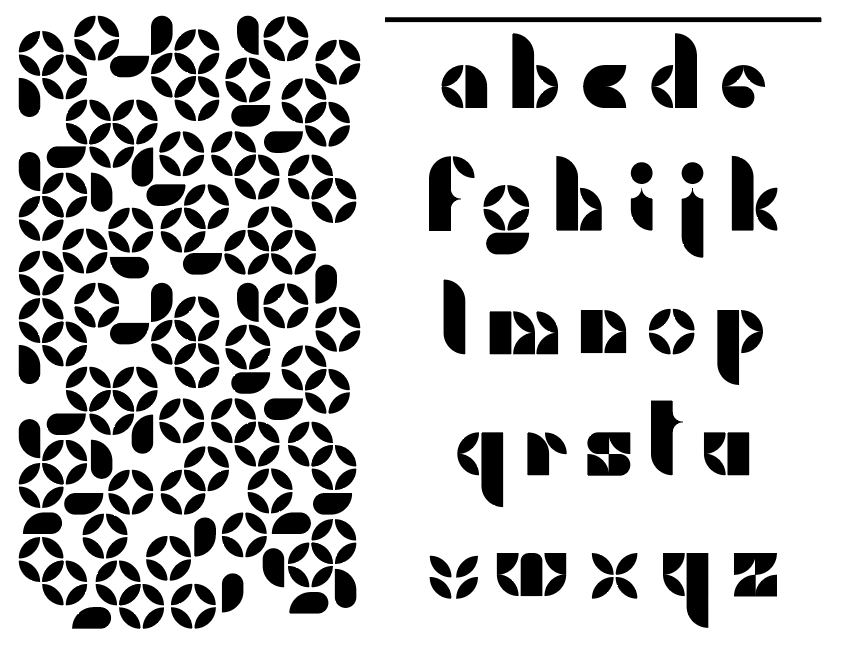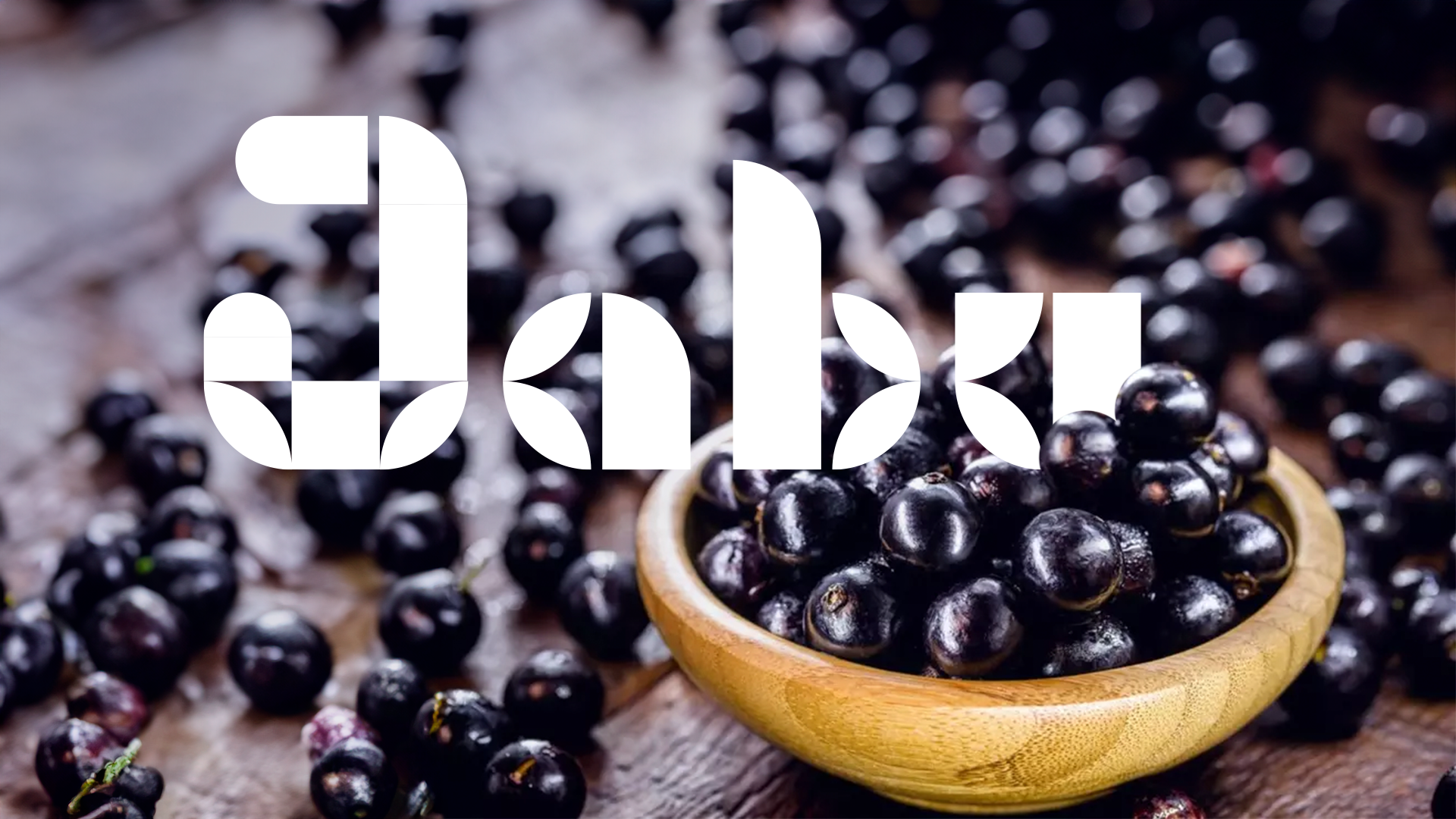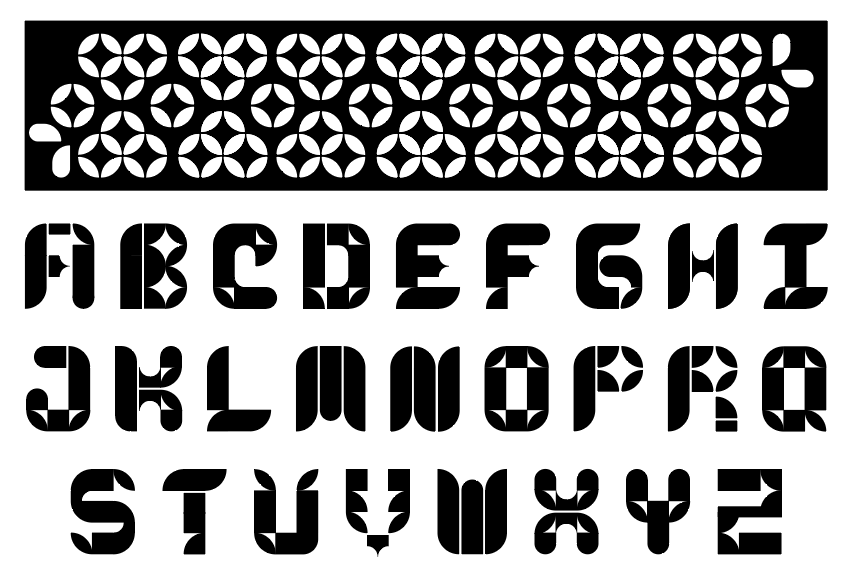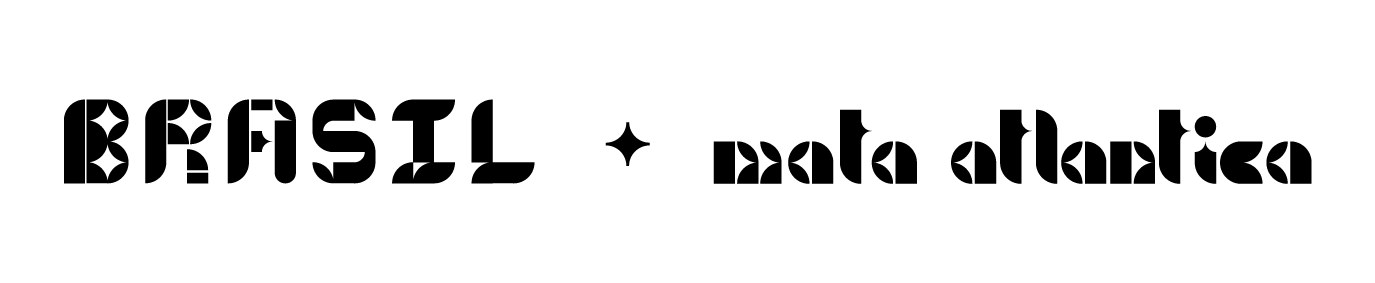
Jabu | Modular Font
The goal was to design a basic uppercase and lowercase alphabet (A–Z, a–z) using modules built from the primary forms (●, ▲, ■) and combinations thereof. Working with this modular method helps understanding the architecture of letterforms and the modularity, coherence, and harmony inherent to type design.
Typography fundamentals; problem-solving; type design principles; grid and structure; modularity; geometry and symmetry; embracing the iterative design process, creating multiple versions of their typeface, gathering feedback, and making refinements; choices of legibility and readability; experimental design.